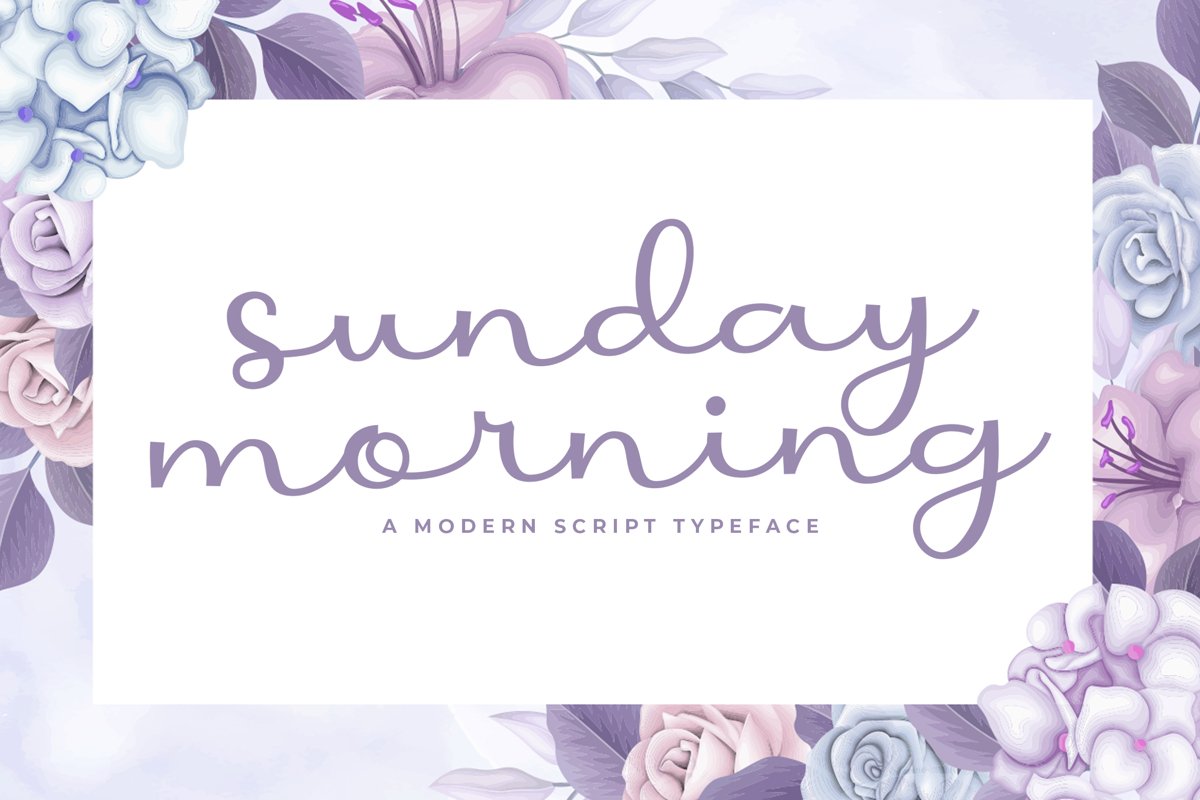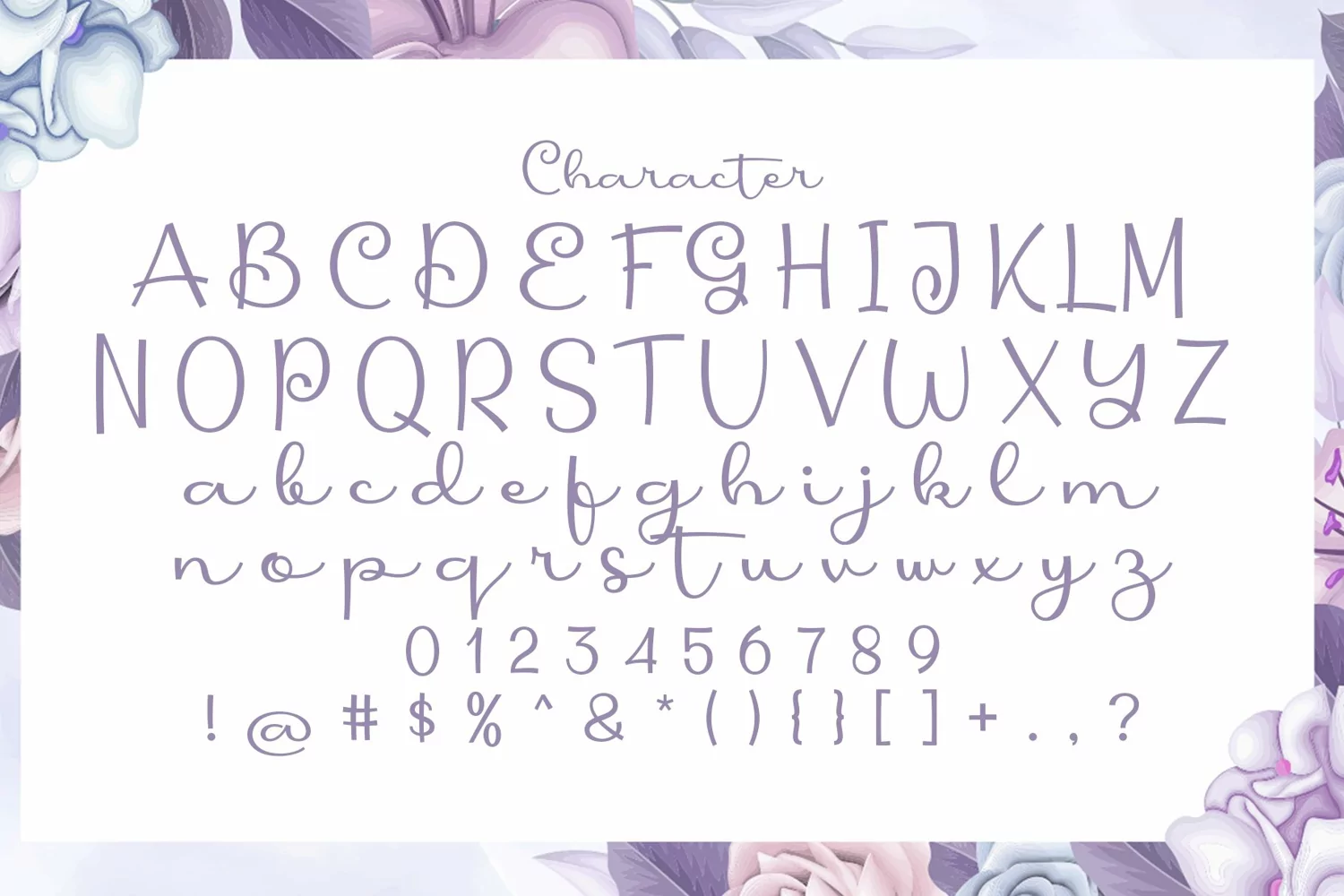
Sunday Morning is a modern script typeface. Perfect for display, poster, quotes, film, craft needs, book cover, business card, packaging, merchandise, branding, logo, logotype, header, title, and many more.